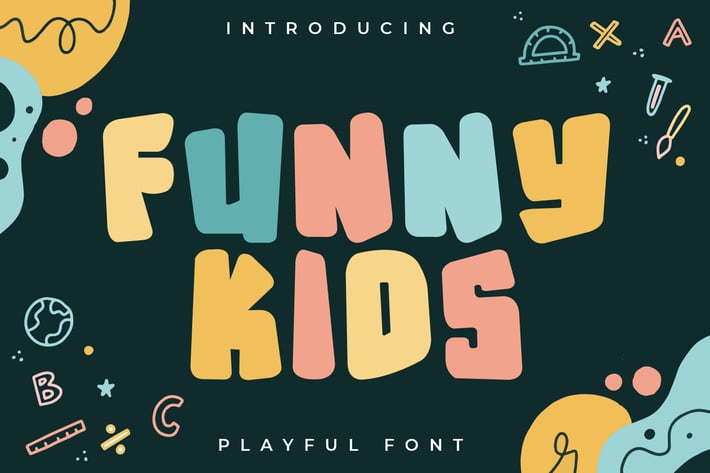
Funny Kids - Cute Display Font
Introducing Funny Kids - Cute Display Font
Funny Kids is a playful and cute display font. It embodies trendiness and authenticity and is the perfect choice for any children activity or school project.